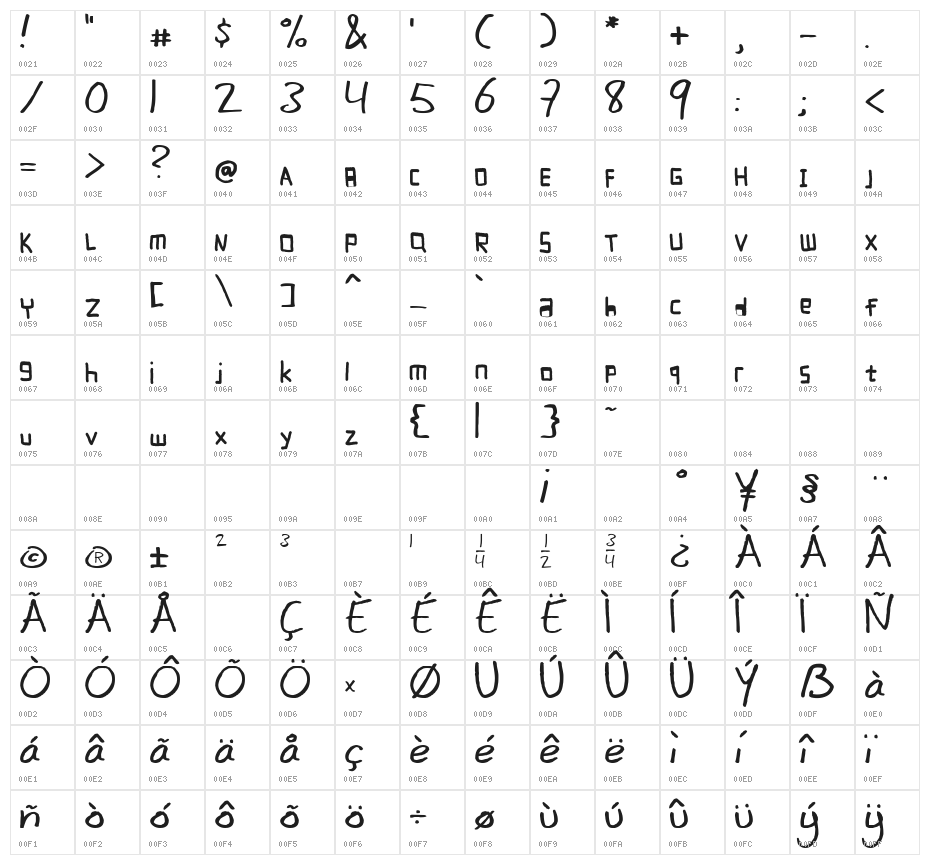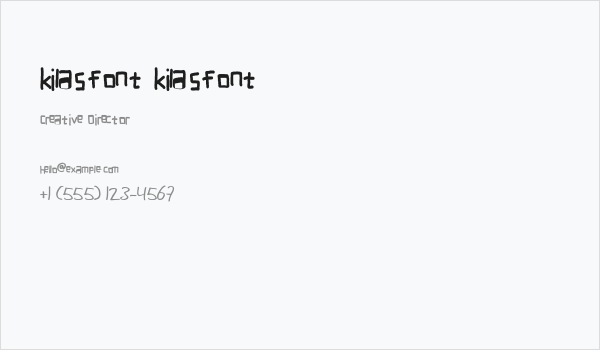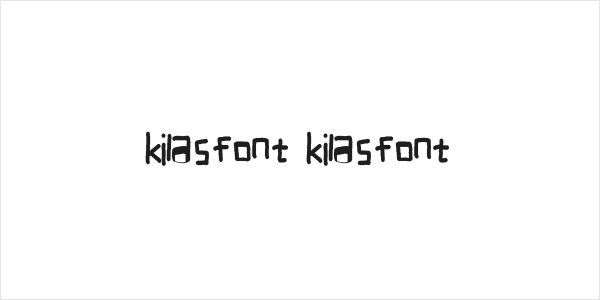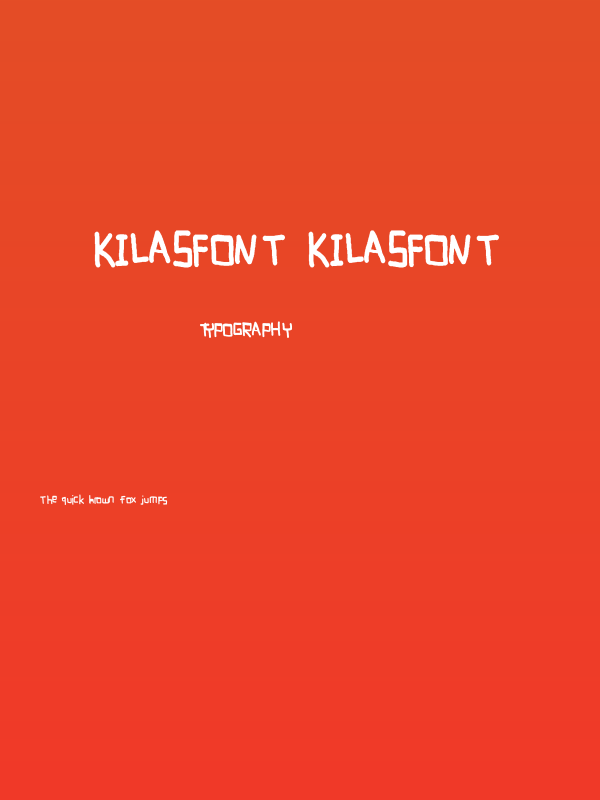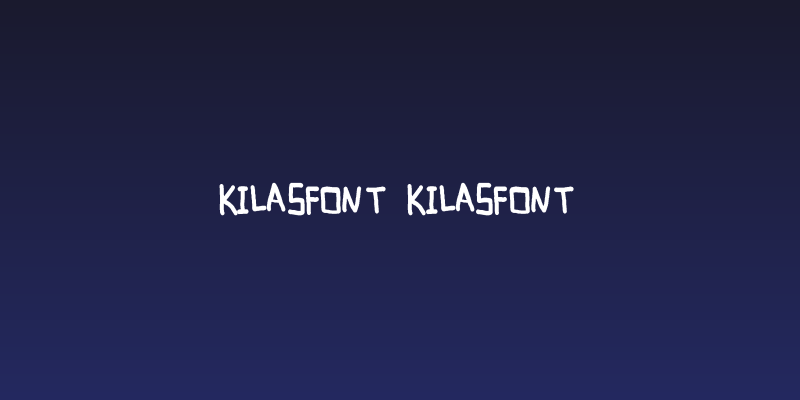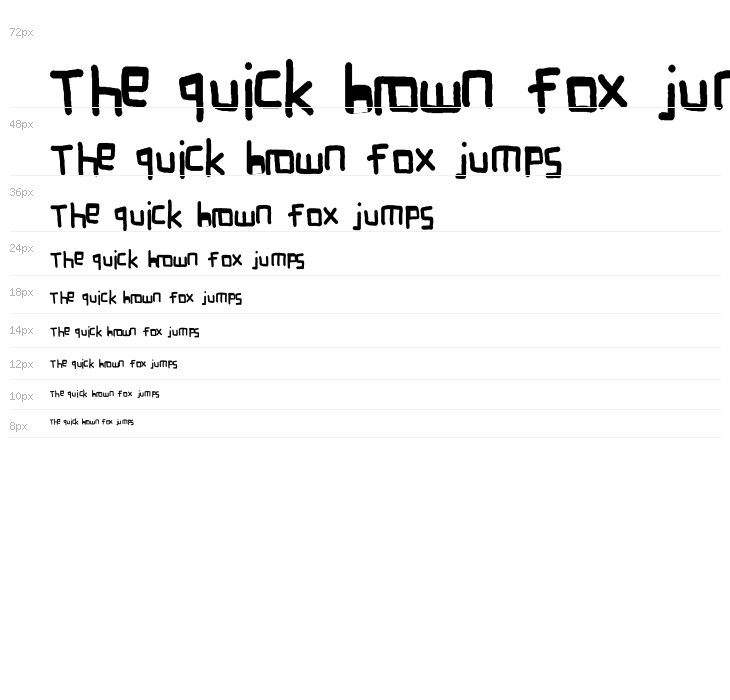
kilasfont Font
kilasfont Description
This font features a playful and casual handwritten style, characterized by its uneven strokes and organic flow. The letters are slightly irregular, giving it a personal and informal feel. The uppercase and lowercase letters maintain a consistent style, with rounded edges and a somewhat bold appearance. Numbers and special characters follow the same playful aesthetic, making the font suitable for creative and informal projects. The overall appearance is friendly and approachable, ideal for designs that require a touch of whimsy.
| Proposed Projects | Ideal for children's books, greeting cards, casual branding, and playful social media graphics. |